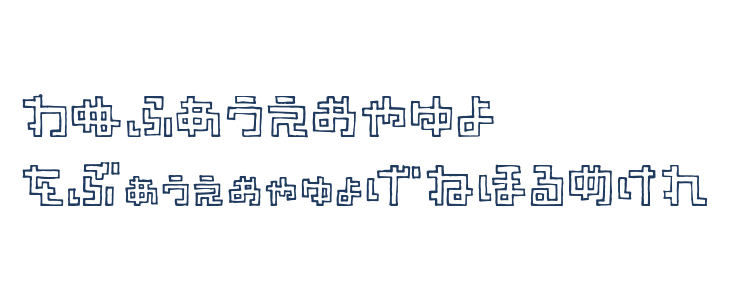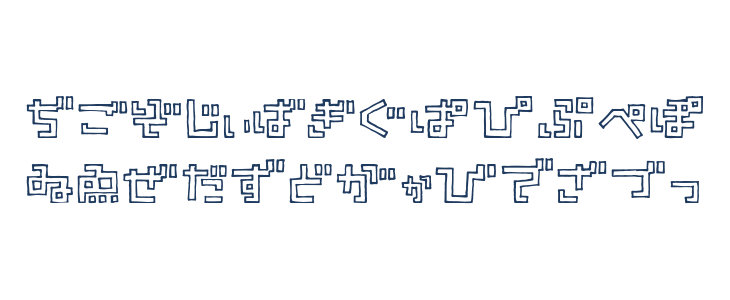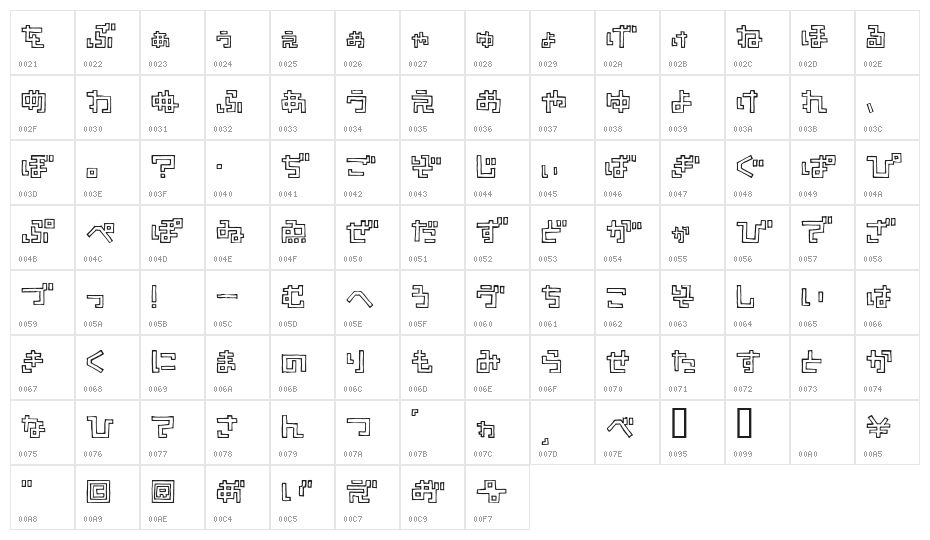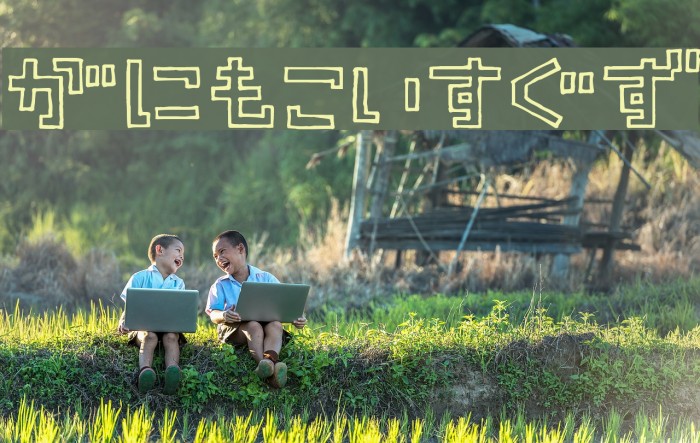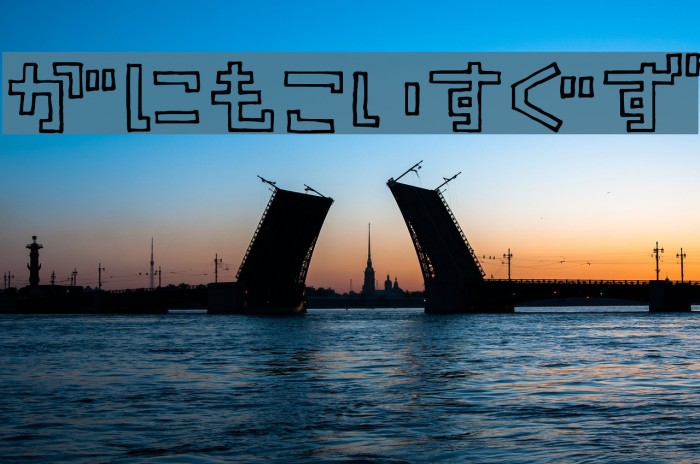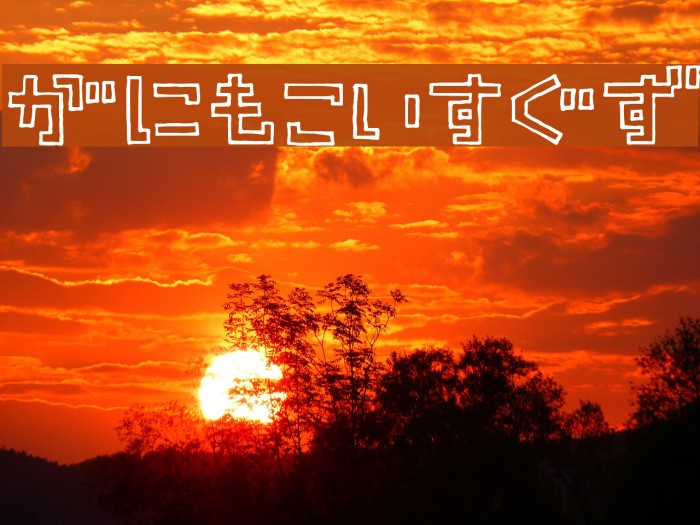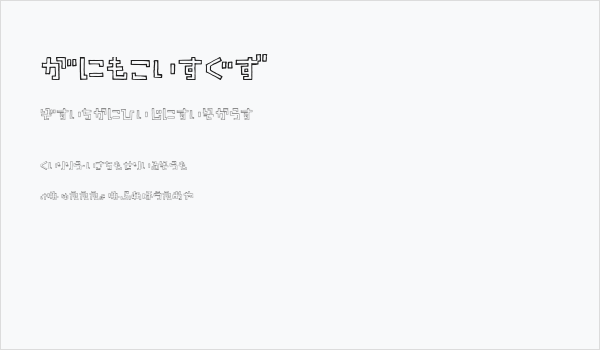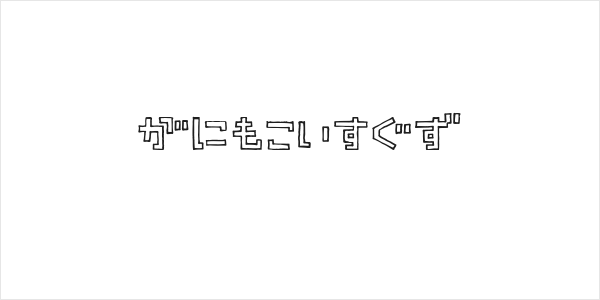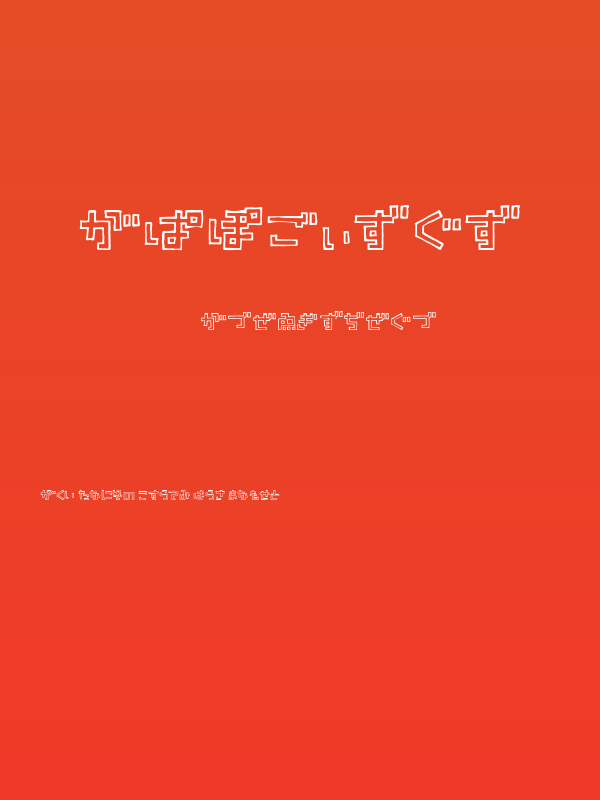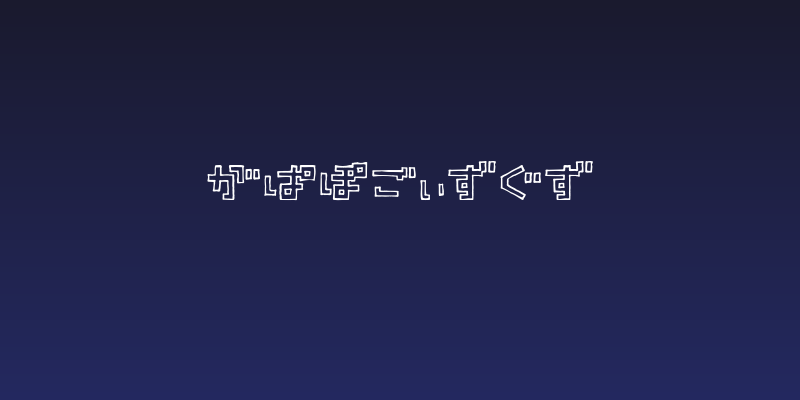
TimberHR Font
TimberHR Description
A geometric, outlined font with a hand-drawn effect, featuring irregular, angular lines and a playful, sketch-like appearance. The characters are monoline and have a consistent stroke width, with a boxy, maze-like construction.
| Overall Style | Decorative, Playful, Hand-drawn |
| Use Case | Headlines, Posters, Logos, Display text |
| Proposed Projects | ChildrenΓ’β¬β’s books, comic titles, posters, playful branding, educational materials. |